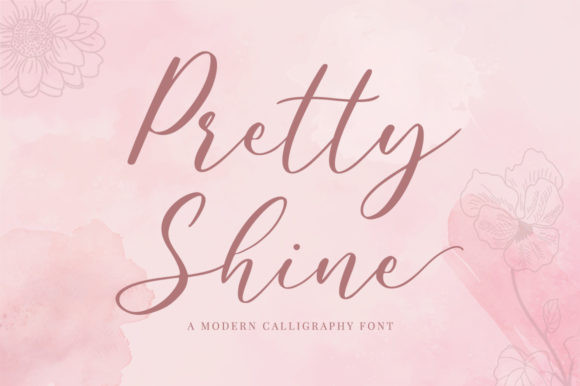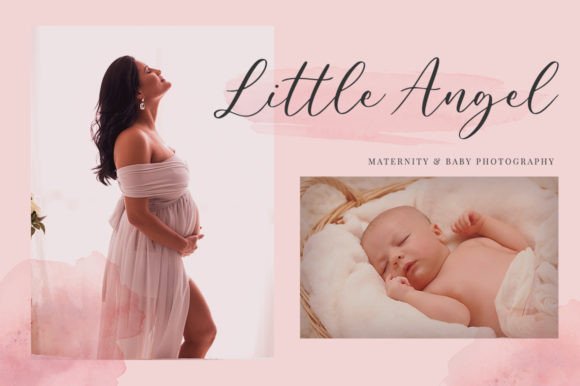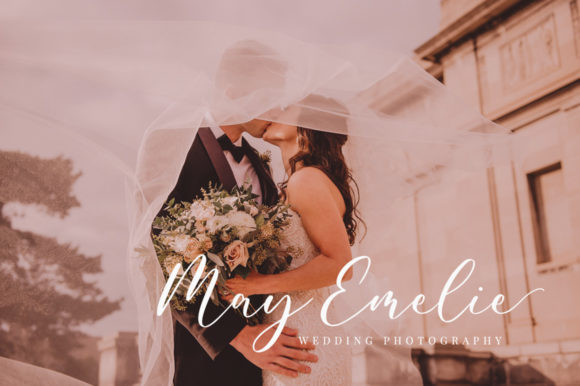
Pretty Shine Font
Pretty Shine is a delicate, elegant and flowing handwritten font. Get inspired by its authentic feel and use it to create gorgeous wedding invitations, beautiful stationary art, eye-catching social media posts, and cute greeting cards.